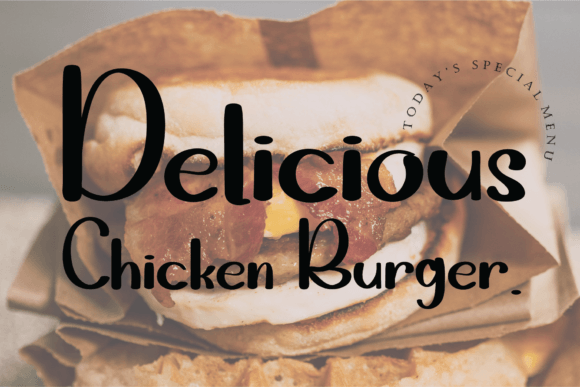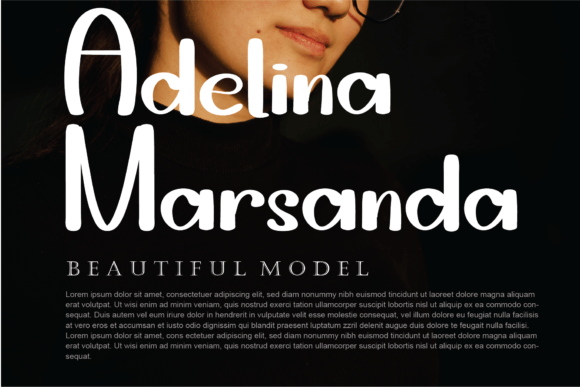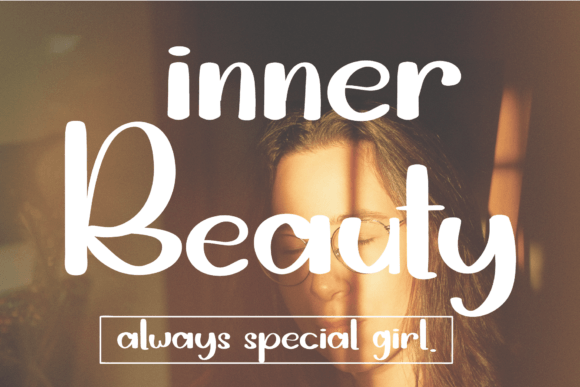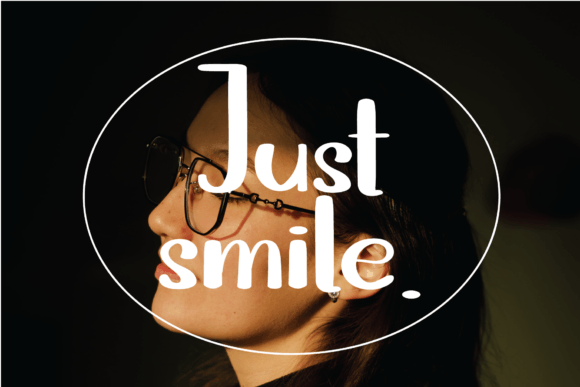
The Perfect Font for a Laughter-Filled Moment
Have you ever been brainstorming ideas for a creative project and suddenly, the perfect font pops into your mind, making everything click into place? That’s exactly what happened to me when I stumbled upon the Always Funny Font. Its elegant handwritten style is both beautiful and modern, leaving a lasting impression on anyone who lays eyes on it.
Always Funny Font is more than just a pretty face – it’s a versatile tool that can be used for a wide range of projects, from wedding invitations and business cards to logos and advertisements. Whether you’re a seasoned designer or just starting out, this font is a valuable addition to your toolkit.
With its unique blend of elegance and whimsy, Always Funny Font is sure to bring a smile to your face – and that of your clients. Whether you’re looking to add some personality to your branding or simply want to make a lasting impression, this font is the perfect choice.
Always Funny Font Key Features
- Font Family: Always Funny Font comes in two font families – Always Funny Font Regular and Always Funny Font Bold.
- Unique Characteristics: The Always Funny Font features a playful, humorous design with exaggerated letterforms and quirky details, making it perfect for adding a lighthearted touch to your designs.
Always Funny Font Review
When I first saw the Always Funny Font, I thought it was going to be a typical novelty font with a lot of flair but not much substance. However, I was pleasantly surprised to find that it’s actually quite well-designed and can be used in a variety of creative projects.
Here are some things that work well with the Always Funny Font: ✨ It’s super playful and fun, making it perfect for comic books, cartoons, and other projects that need a lighthearted tone. ✨ The font is highly customizable, with a wide range of styles and sizes to choose from. ✨ The font is also very versatile and can be used for both digital and print projects.
However, there are some limitations to consider: ⚠️ The font may not be suitable for formal or professional projects, as it can come across as too playful or childish. ⚠️ The font may not be compatible with all operating systems or devices, so be sure to test it thoroughly before using it in a project.
Overall, I think the Always Funny Font is a great choice for anyone looking to add a bit of whimsy to their design project. Just be sure to use it in the right context and test it thoroughly before using it in a final product.
- Playful and fun design
- Very versatile
- May not be suitable for formal or professional projects
Always Funny Font is ideal for creating humorous and playful content, such as social media posts, memes, and advertisements.
Here are some tips to get the most out of Always Funny Font:
- Use it sparingly to add a touch of humor to your design.
- Combine it with other fonts to create a unique and playful look.
Alternatives to “Always Funny Font” for Designers
Playfair Display is an elegant, high-end serif font that is perfect for titles, headings, and luxury branding. It’s ideal for designers who want to create a sophisticated and refined look. Compared to “Always Funny Font,” Playfair Display is more formal and less playful, making it suitable for corporate and high-end design projects.
Great Vibes is a beautiful, handwritten font that exudes a sense of creativity and playfulness. It’s perfect for designers who want to add a touch of personality to their designs. Compared to “Always Funny Font,” Great Vibes is more elegant and refined, making it suitable for branding and packaging design.
Q: Are there any font size or kerning limitations for Always Funny Font?
The Always Funny Font is designed to work well at a wide range of font sizes, from small text to large display sizes. However, as with any font, there may be limitations at very small or very large font sizes. It’s recommended to test the font at various sizes to ensure optimal results. Additionally, Always Funny Font includes advanced kerning tables to ensure accurate spacing between characters, but some custom kerning may be required for very specific font combinations.